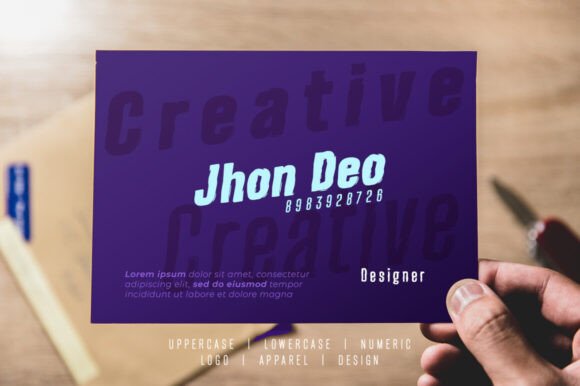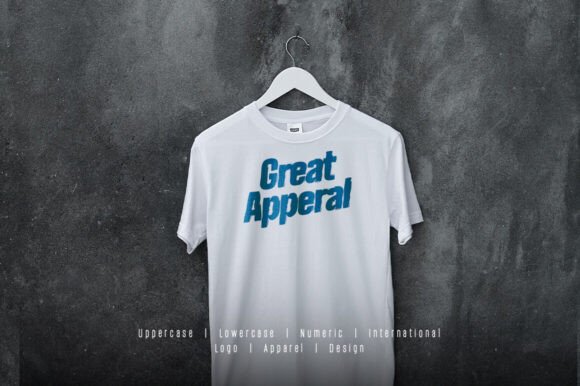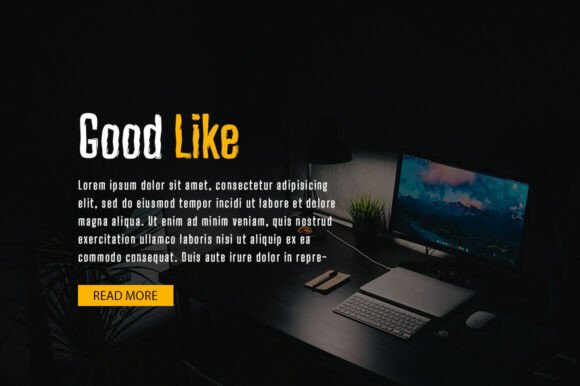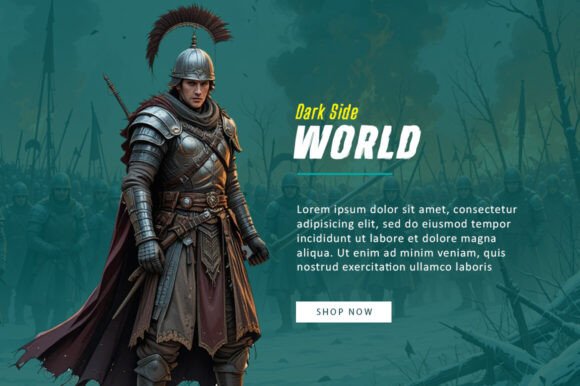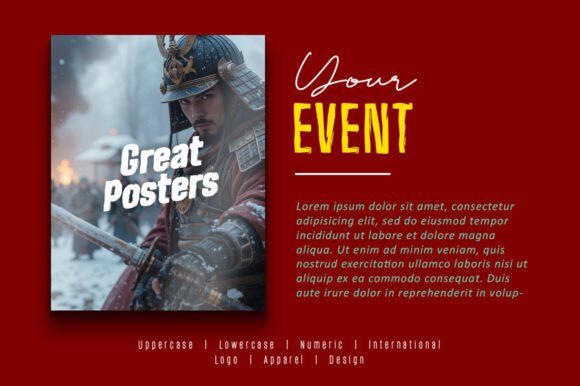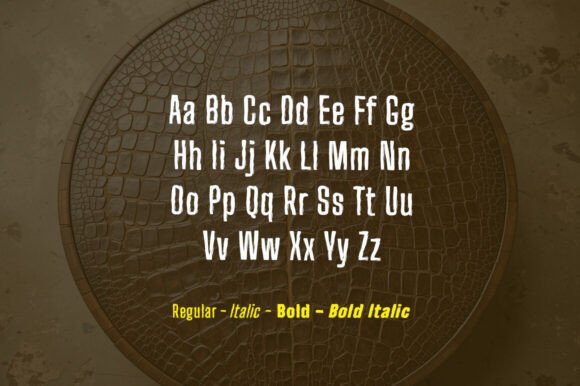
Unleash Your Creativity with Blade Crown Font: A Bold and Assertive Sans Serif
In the world of typography, a font can make or break a design. It’s the foundation upon which your entire creative project is built. That’s why having a versatile and impactful font in your arsenal is crucial. Introducing Blade Crown Font, a bold and assertive sans serif font that’s about to become your new go-to. Whether you’re a designer, craftsperson, or simply a creative enthusiast, Blade Crown is poised to elevate your work to new heights.
The Power of Bold Typography
Blade Crown Font is not just another addition to your font library; it’s a game-changer. Its bold and assertive nature makes it perfect for a wide range of projects, from eye-catching headlines to striking logos. This font’s assertiveness doesn’t overpower; instead, it commands attention and communicates confidence. In a digital landscape where standing out is increasingly difficult, Blade Crown gives you the edge you need.
Versatility at Its Core
No matter the topic or theme of your project, Blade Crown Font adapts seamlessly. Its clean lines and sans serif design ensure that your message is conveyed with clarity and precision. Whether you’re working on a modern and minimalist design or something more complex and detailed, this font complements your work with elegance and sophistication. From branding and advertising to web design and crafting, Blade Crown’s versatility knows no bounds.
Key Features of Blade Crown Font
- Bold and Assertive: Make a statement with your text. Blade Crown’s boldness ensures your message is heard.
- Sans Serif Elegance: Enjoy the clean and modern look that sans serif fonts are known for, perfect for contemporary designs.
- Highly Versatile: Use it across various projects, from digital platforms to print materials.
- Easy to Read: Despite its boldness, Blade Crown maintains excellent readability, making it perfect for both headings and body text.
Why Choose Blade Crown Font?
Choosing a font for your project can be overwhelming, given the numerous options available. However, Blade Crown stands out for several reasons:
- Impactful Design: It grabs attention without overwhelming the viewer, making it perfect for headlines and key messages.
- Flexibility: Works well in both digital and print formats, offering you the flexibility to use it across different mediums.
- Timeless Appeal: Unlike trendy fonts that may quickly go out of style, Blade Crown’s classic boldness ensures it remains relevant.
How to Use Blade Crown Font Effectively
To get the most out of Blade Crown Font, consider the following tips:
- Mix and Match: Combine Blade Crown with lighter fonts to create contrast and hierarchy in your designs.
- Consider Context: While Blade Crown is versatile, ensure it aligns with the tone and theme of your project.
- Experiment with Sizes: Its bold nature works well in various sizes, from large headings to smaller body texts.
Blade Crown Font is more than just a bold and assertive sans serif font; it’s a tool that can transform your creative projects. Its versatility, readability, and impactful design make it an invaluable asset to your font library. Whether you’re a professional designer or a DIY enthusiast, Blade Crown is ready to help you make a statement. Elevate your designs, enhance your brand’s voice, and connect with your audience more effectively with Blade Crown Font.